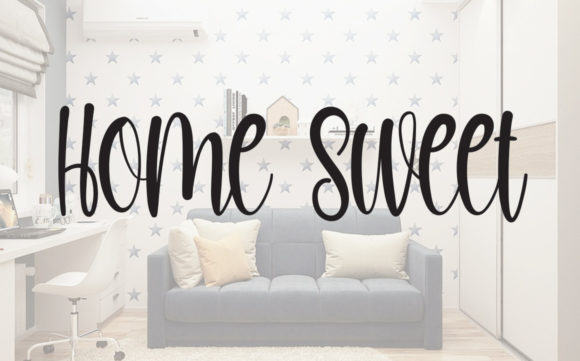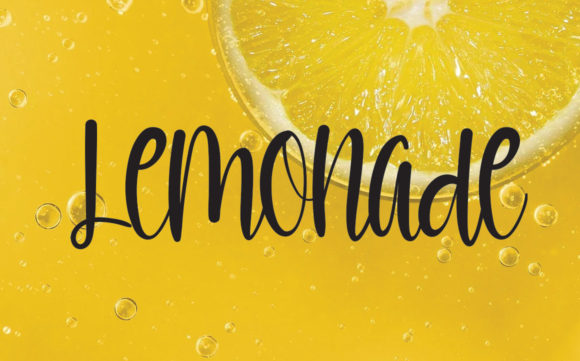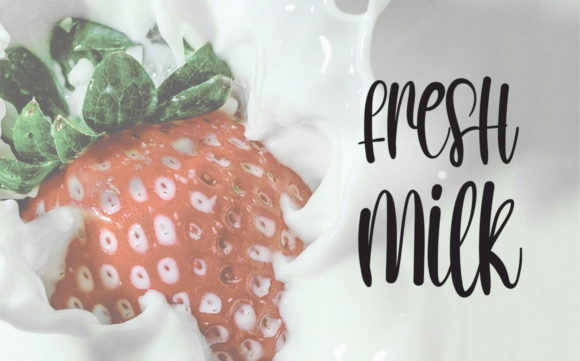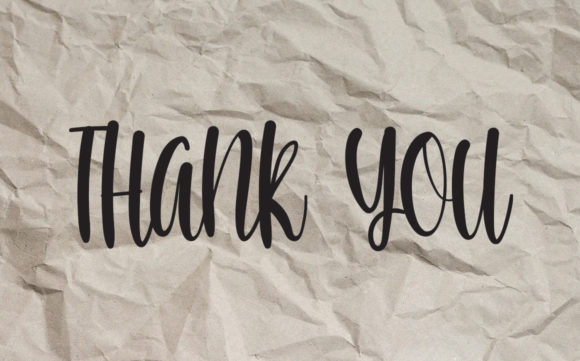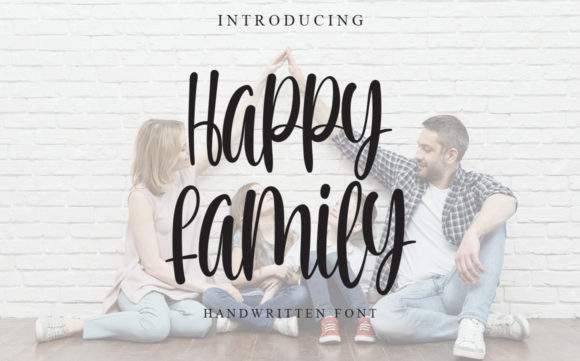
Introducing Happy Family Font: The Sweet and Romantic Handwritten Font for Your Design Needs
Are you a designer or crafter looking for a font that exudes warmth, love, and romance? Look no further than the Happy Family Font! This beautiful handwritten font is perfect for creating stunning wall displays, wedding invitations, social media post logos, and any project that requires impressive typography. With its delicate flow and sweet, romantic vibe, Happy Family Font is sure to capture the hearts of your audience.
What Makes Happy Family Font So Special?
Happy Family Font is a unique and elegant handwritten font that boasts a range of characteristics that make it stand out from the crowd. Here are just a few reasons why this font is a must-have for designers and crafters:
- Delicate Flow: Happy Family Font features a delicate flow that gives it a soft, romantic feel. The letters seem to dance across the page, creating a sense of movement and elegance.
- Sweet and Romantic: This font is perfect for projects that require a touch of romance and whimsy. Whether you’re creating a wedding invitation or a social media post, Happy Family Font will add a sweet and loving touch.
- Handwritten Charm: The handwritten nature of Happy Family Font gives it a personal and intimate feel. It’s perfect for creating projects that require a human touch.
- Versatile: Happy Family Font is incredibly versatile and can be used for a wide range of projects, from wall displays and wedding invitations to social media post logos and more.
How to Use Happy Family Font in Your Designs
Happy Family Font is incredibly easy to use and can be incorporated into a wide range of design projects. Here are a few ideas to get you started:
- Wedding Invitations: Create beautiful and romantic wedding invitations that will set the tone for the big day.
- Wall Displays: Use Happy Family Font to create stunning wall displays that will add a touch of elegance to any room.
- Social Media Post Logos: Create eye-catching social media post logos that will help your brand stand out from the crowd.
- Stationery: Use Happy Family Font to create beautiful stationery, including notecards, journals, and more.
Tips and Tricks for Getting the Most Out of Happy Family Font
Here are a few tips and tricks to help you get the most out of Happy Family Font:
- Experiment with Colors: Happy Family Font looks beautiful in a range of colors, from soft pastels to bold brights. Experiment with different colors to find the perfect look for your project.
- Play with Pairings: Happy Family Font pairs beautifully with a range of other fonts. Try pairing it with a bold font for a striking contrast or with a script font for a romantic look.
- Add Decorations: Consider adding decorations, such as flowers or hearts, to give your project a extra special touch.
Happy Family Font is a beautiful and romantic handwritten font that is perfect for designers and crafters. With its delicate flow, sweet and romantic vibe, and versatile nature, it’s the perfect addition to any design project. Whether you’re creating a wedding invitation, wall display, or social media post logo, Happy Family Font is sure to impress. So why wait? Download Happy Family Font today and start creating your own stunning designs!